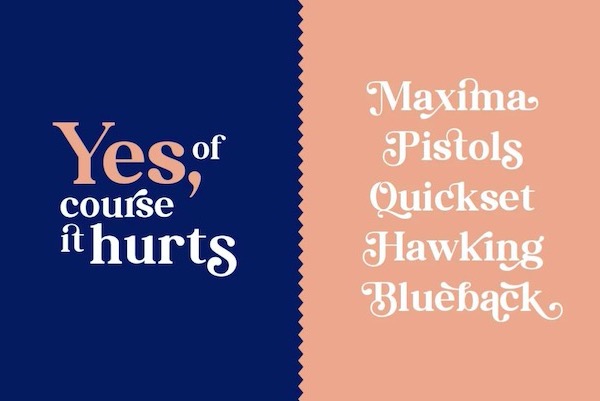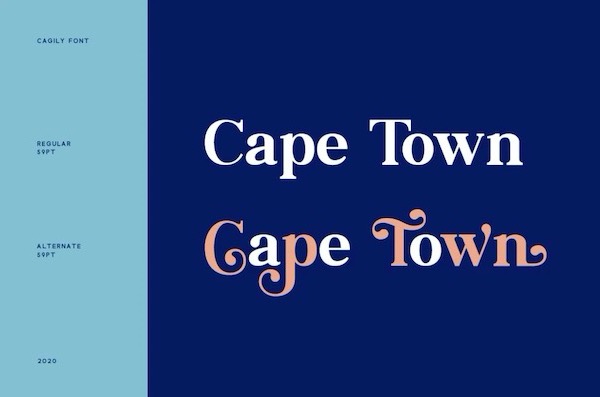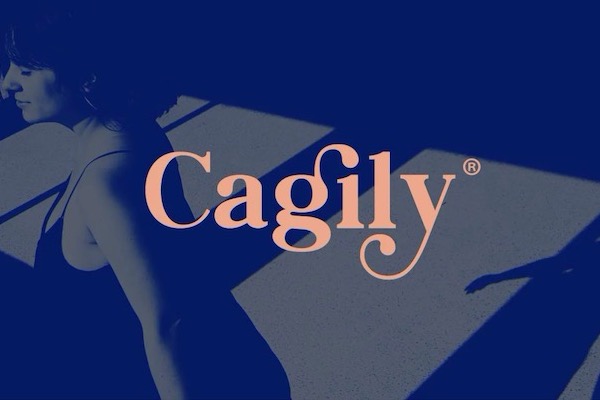
Cagily is a classy modern serif font that was created and shared by Vuuuds. Do you know, every single letter has been carefully crafted to make your design project looks more professional and delicate. This basic font consists of beautiful alternate glyphs. You can access the alternate glyph via Font Book (Mac user) or Windows Character Map (Windows user), I’ve put the linked tutorial inside the zip file.
Cagily Serif Font